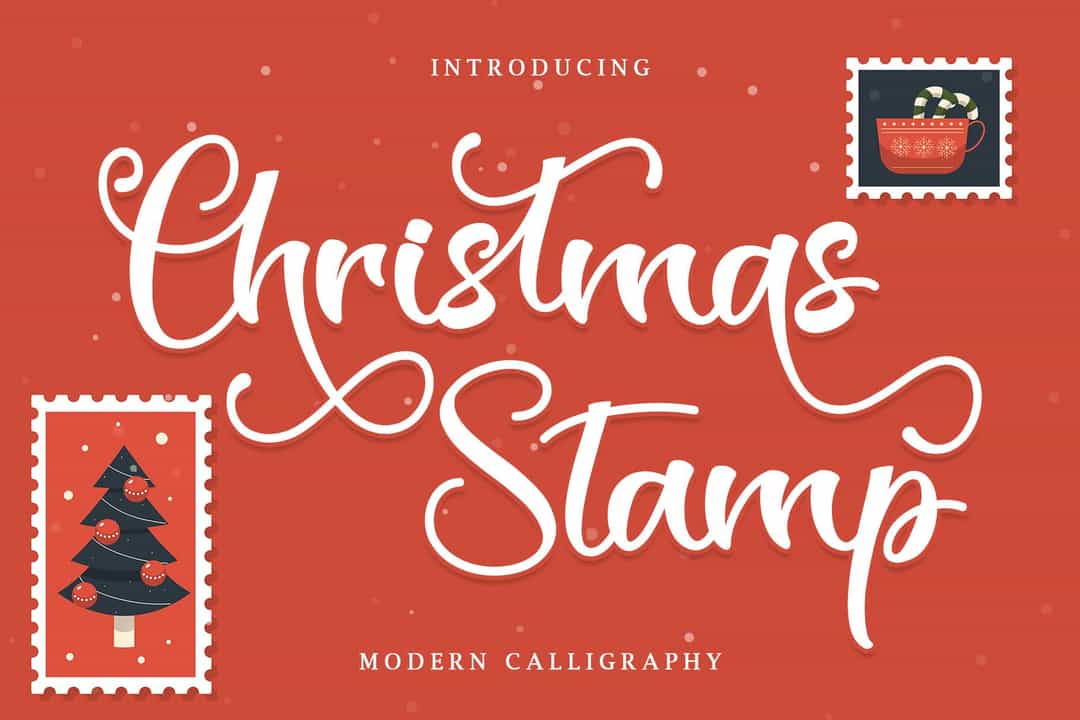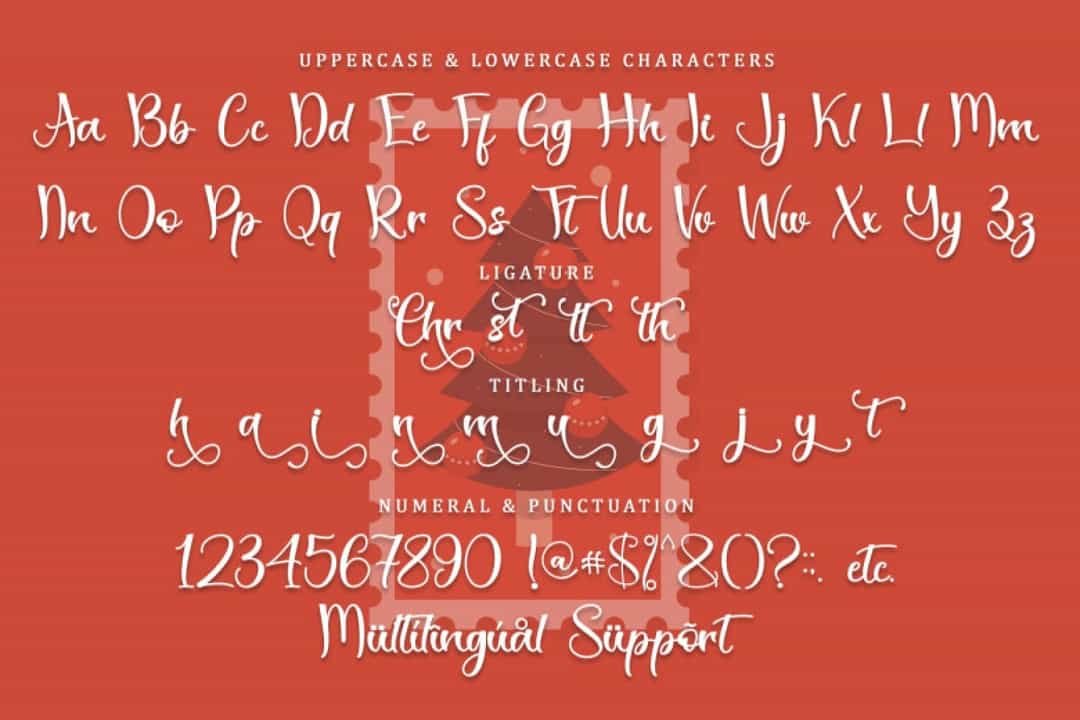
Christmas Stamp is an eye-catching calligraphy script font with charming, playful characters that appear to move across its base. Use it in any creative project you can think of to see how its unique characters help stand out! PUA encoded, this font can access every glyph and swash with ease!